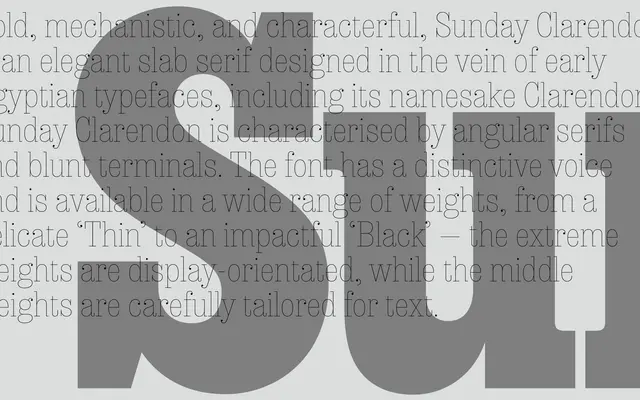
Sunday Clarendon
A Clarendon-lineage slab serif with angular serifs and blunt terminals, spanning seven weights from Thin to Black with matching italics.
Drawn in the tradition of early Egyptian typefaces, Sunday Clarendon uses angular serifs and blunt terminals to give the family a mechanical, forthright character. The weight range is broad enough to cover both text and display work: the middle weights are tuned for body copy while the extreme ends, Thin and Black, are pitched squarely at headline use. Fourteen styles in total, each with a matching italic.
Directly descended from the Egyptian/Clarendon slab serif tradition, with bracket-free angular serifs and blunt terminals characteristic of early nineteenth-century Egyptian types.